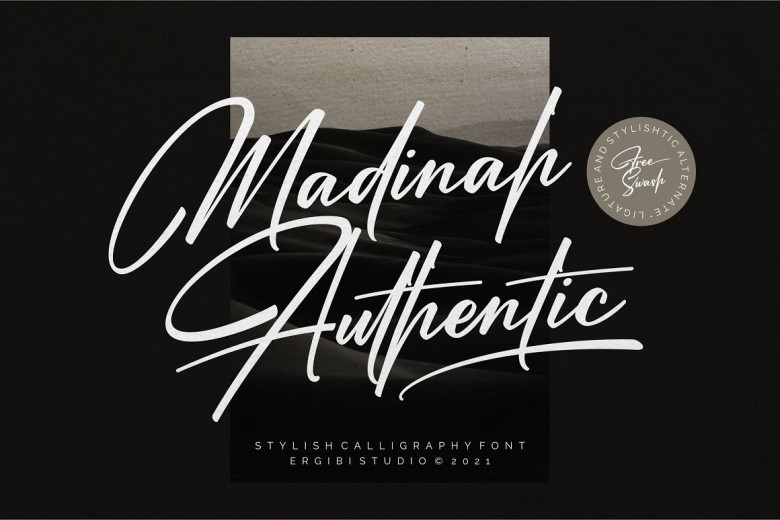
Madinah Authentic Font
Madinah Authentic, inspired by elegance and classy objects, appears sophisticated and stunning for your next project. Madinah Authentic font is ideal for projects that need to appear elegant and sophisticated, such as logos, wedding designs, branding advertisements, social media posts packaging for products product labels designs photography, watermark, invitations stationery projects that require handwriting skills etc.
Madinah Authentic font boasts over 68 ligatures that create an appealing handwritten style, as well as uppercase and lowercase characters, punctuation marks, numerals and alternate/Stylistic characters for use in multiple languages. Additionally, this font supports Multi Language support.
Madinah Authentic Handwritten Font